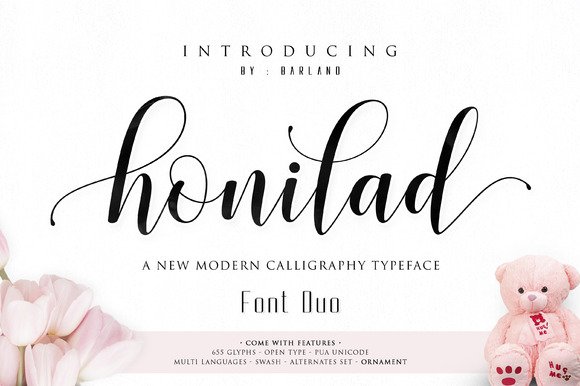
Honilad Script Font Duo
Introduce my new font Honilad Calligraphy Typeface is a unique blend of classic and modern font. imperfect style ups and downs, like a dance letters, smooth, clean and simple.
Honilad Calligraphy Typeface including alternate glyph and beautiful swirl in a font including stylistic sets, Ligatures etc. The Open Type features can be accessed by using Open Type savvy programs such as Adobe Illustrator CS, Adobe Indesign & CorelDraw X6-X7 and Microsoft Word. And this Font has given PUA unicode (specially coded fonts). so that all the alternate characters can easily be accessed in full by a craftsman or designer.